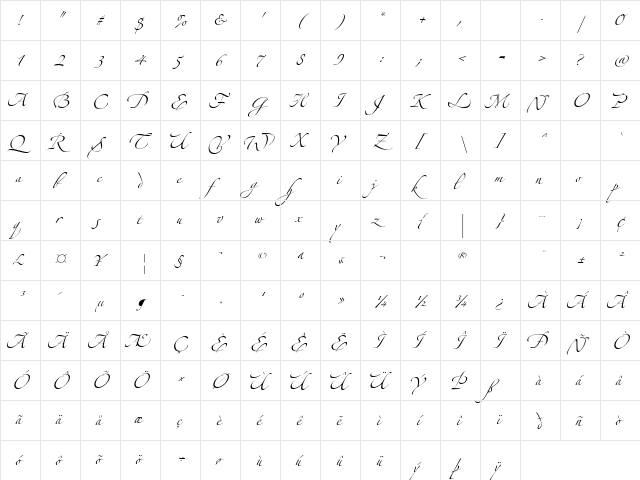
Alexandra Zeferino Three Regular
| Foundry | Gophmann Alexandra Leopoldovna |
| Designer | Alexandra Gophmann |
Design Context for Alexandra Zeferino Three Typeface
Alexandra Zeferino Three is a composed and adaptable typeface that performs quietly and consistently across a wide range of design contexts.